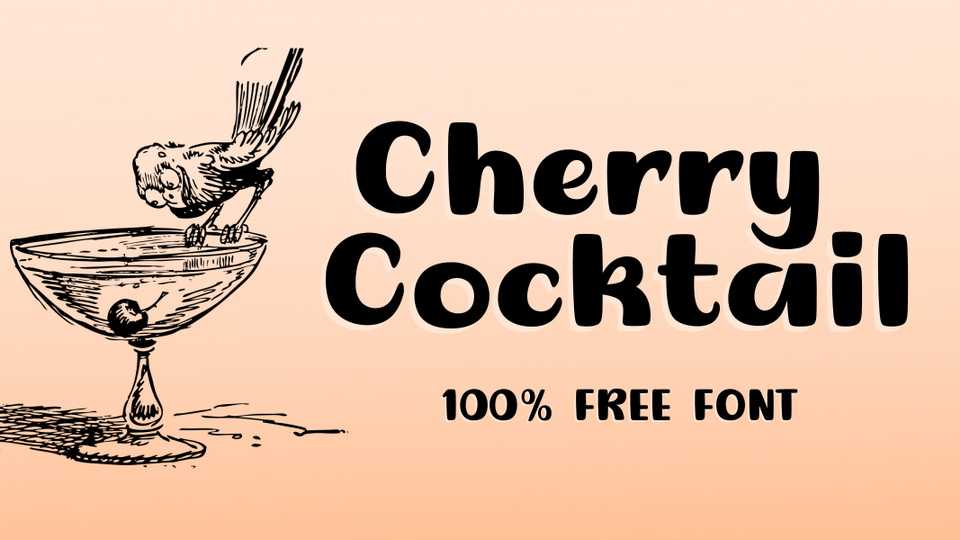
Download Cherry Cocktail font, a cute and playful hand drawn typeface. Cherry Cocktail is a great typeface for short texts, invitations, headlines, social media and advertising.
Designer: Joe Letter